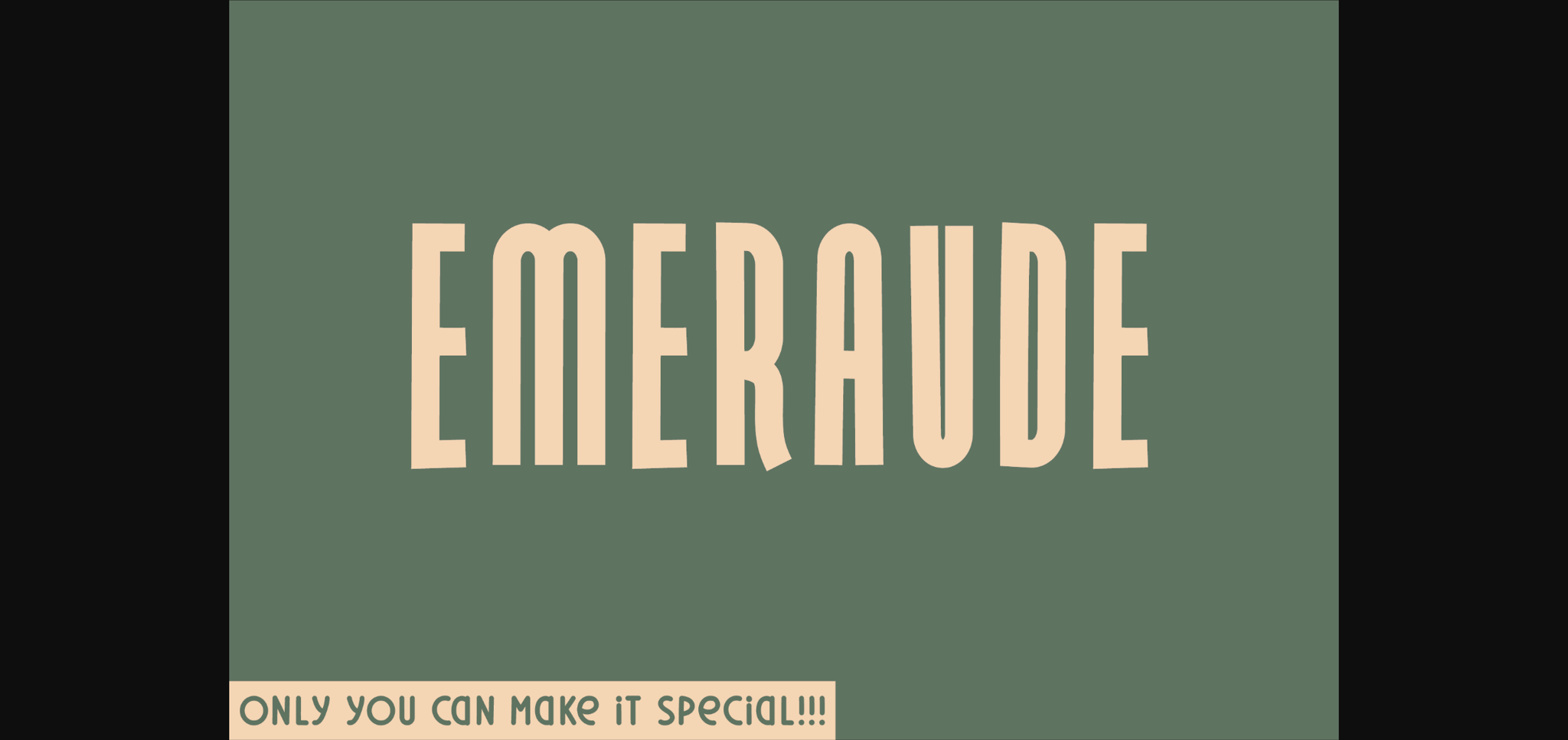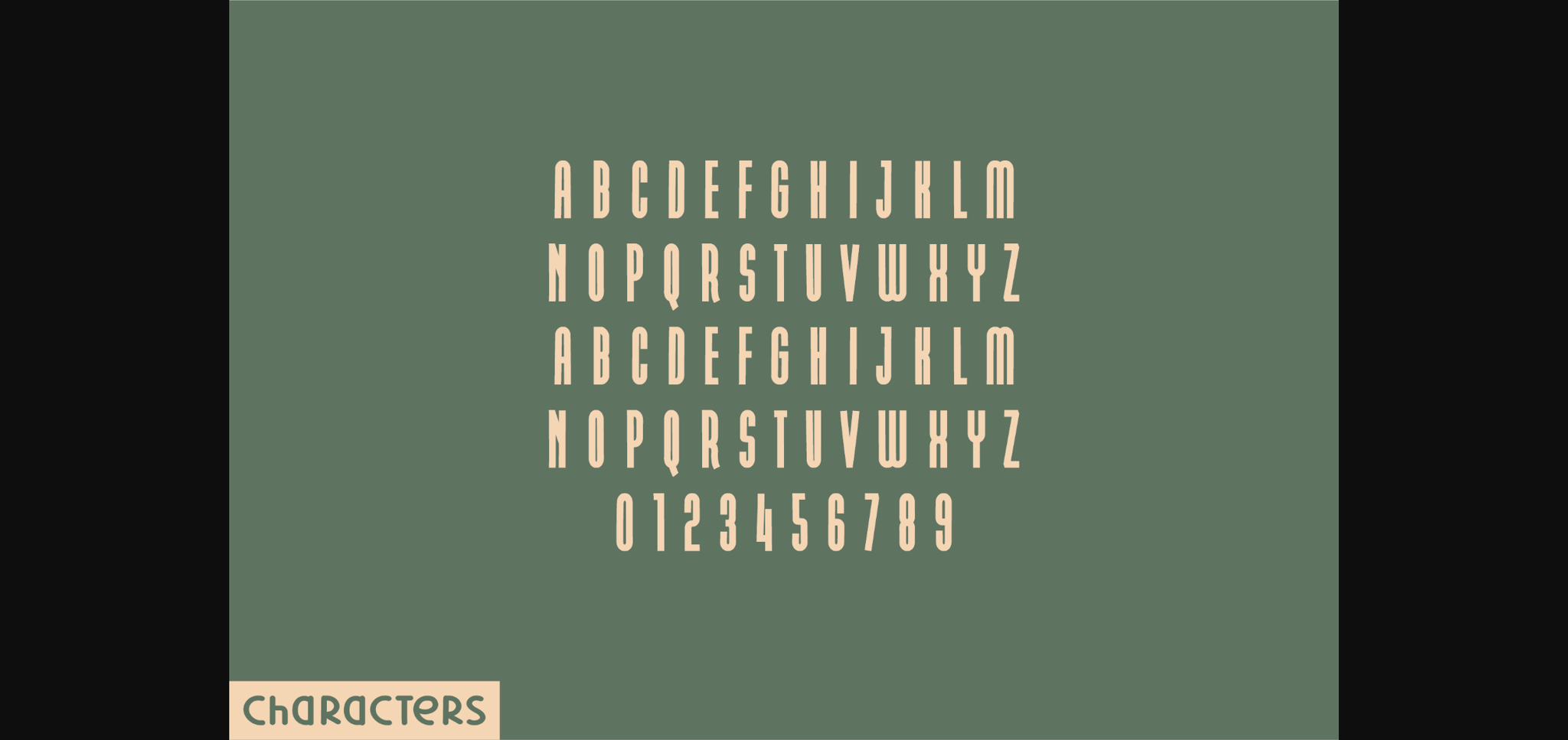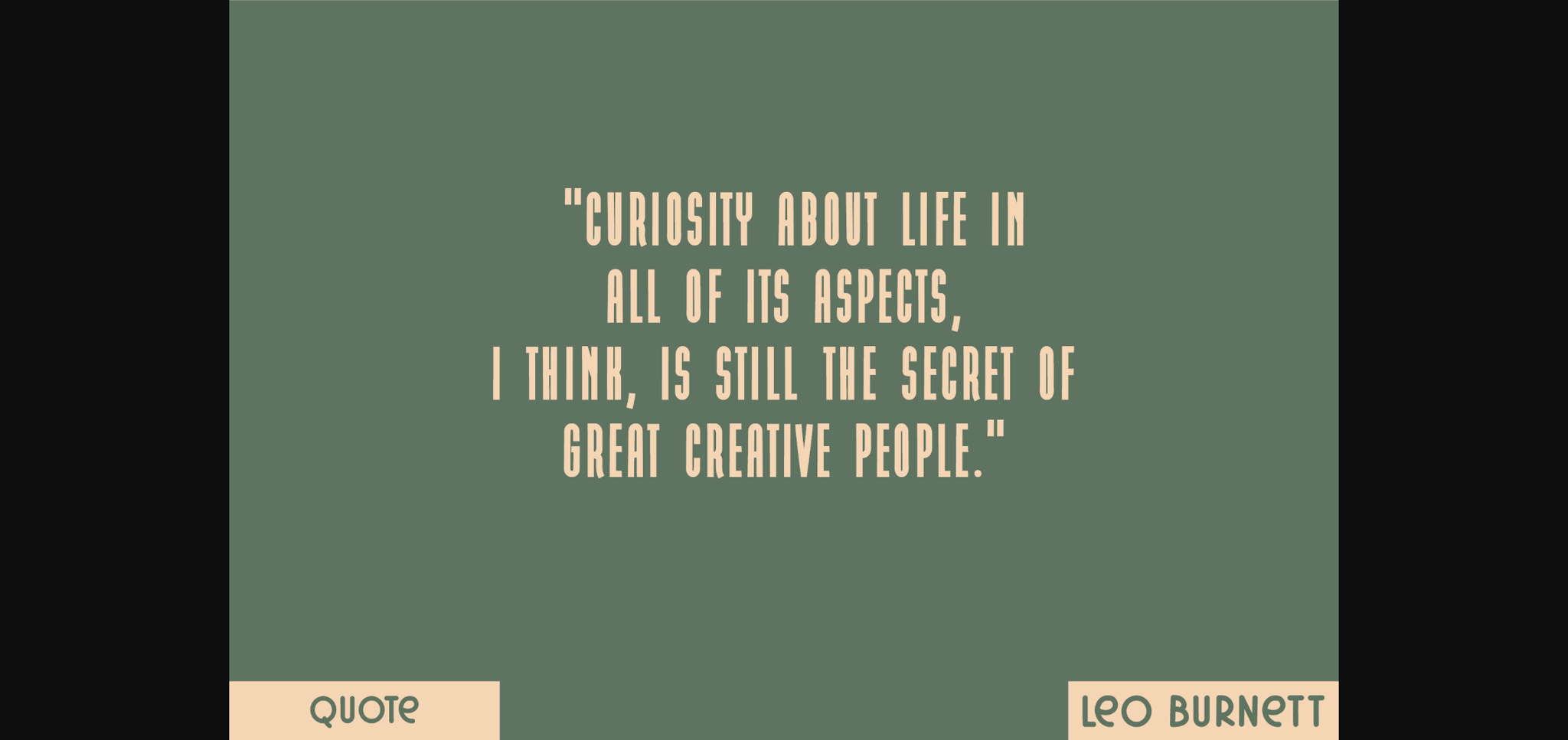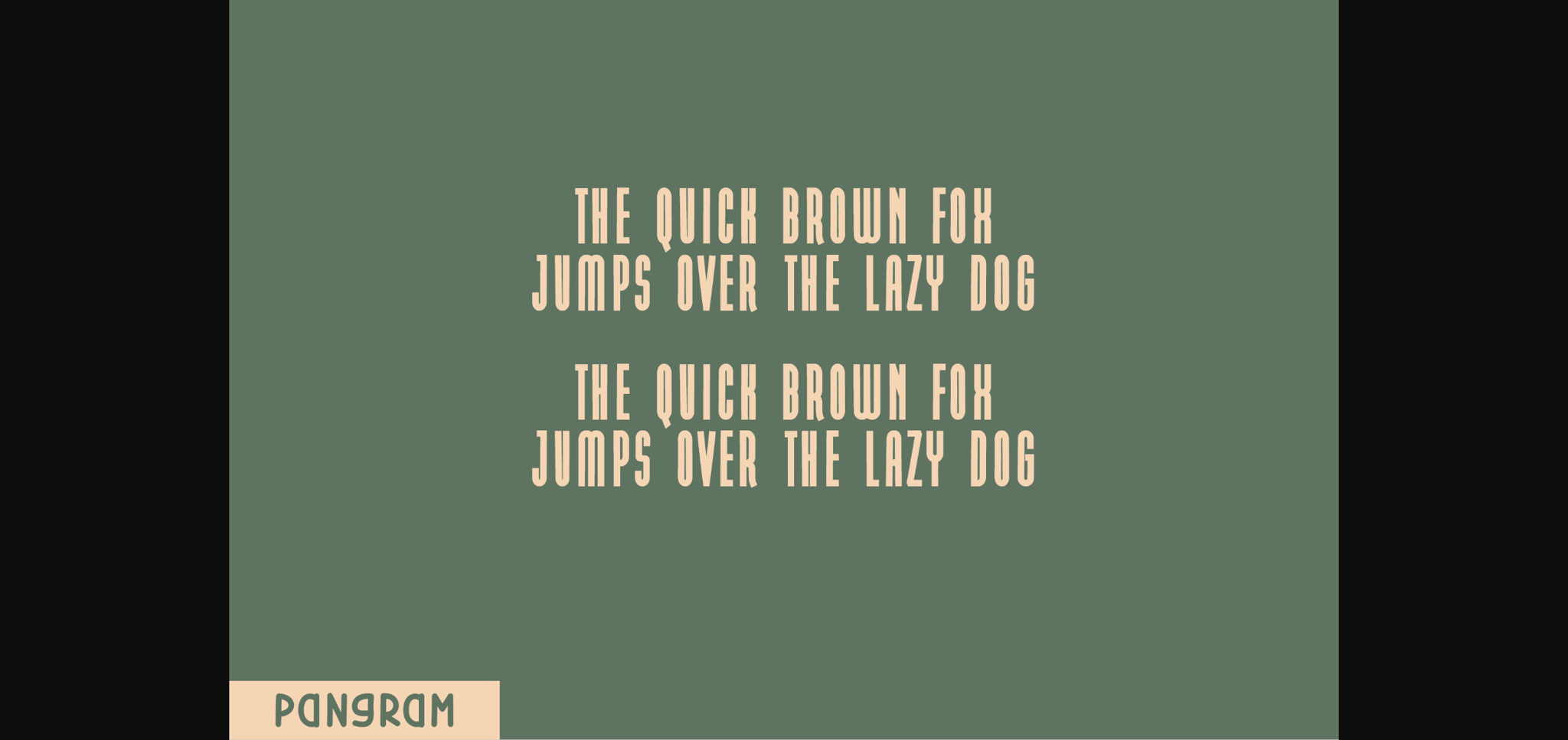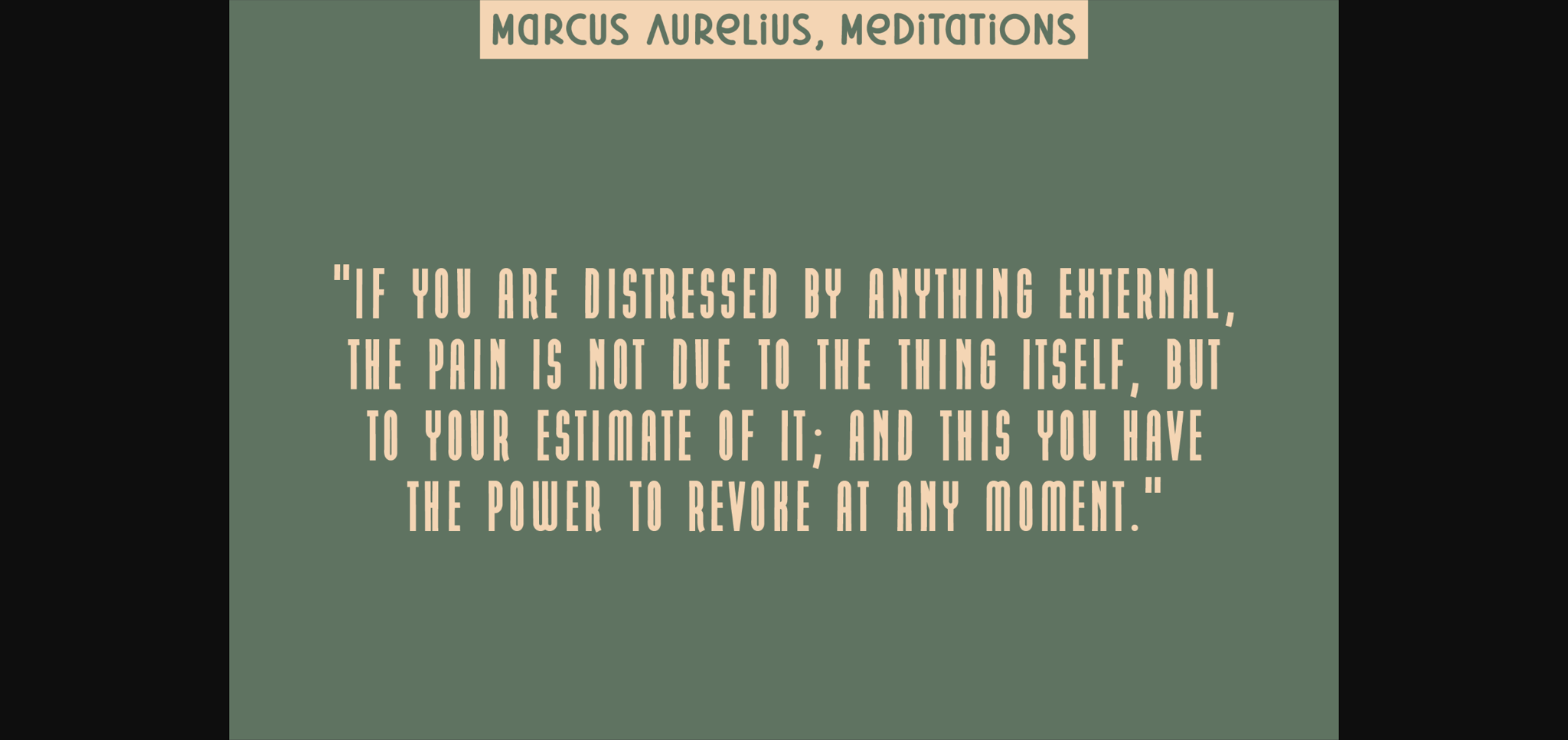
Emeraude Font
About Emeraude Font
Immerse yourself in the elegant simplicity of Emeraude – a sans serif display font that seamlessly blends style and functionality. Expertly crafted, Emeraude offers hard-edged uppercase letters and numbers that resonate with authority. Yet, don’t be deceived by its firm structure – every character is designed with a whisper of natural handwriting, adding an unexpected charm to an otherwise conventional typeface. Emeraude is perfect for designs that crave a touch of natural authenticity, effortlessly injecting an organic appeal into any project.